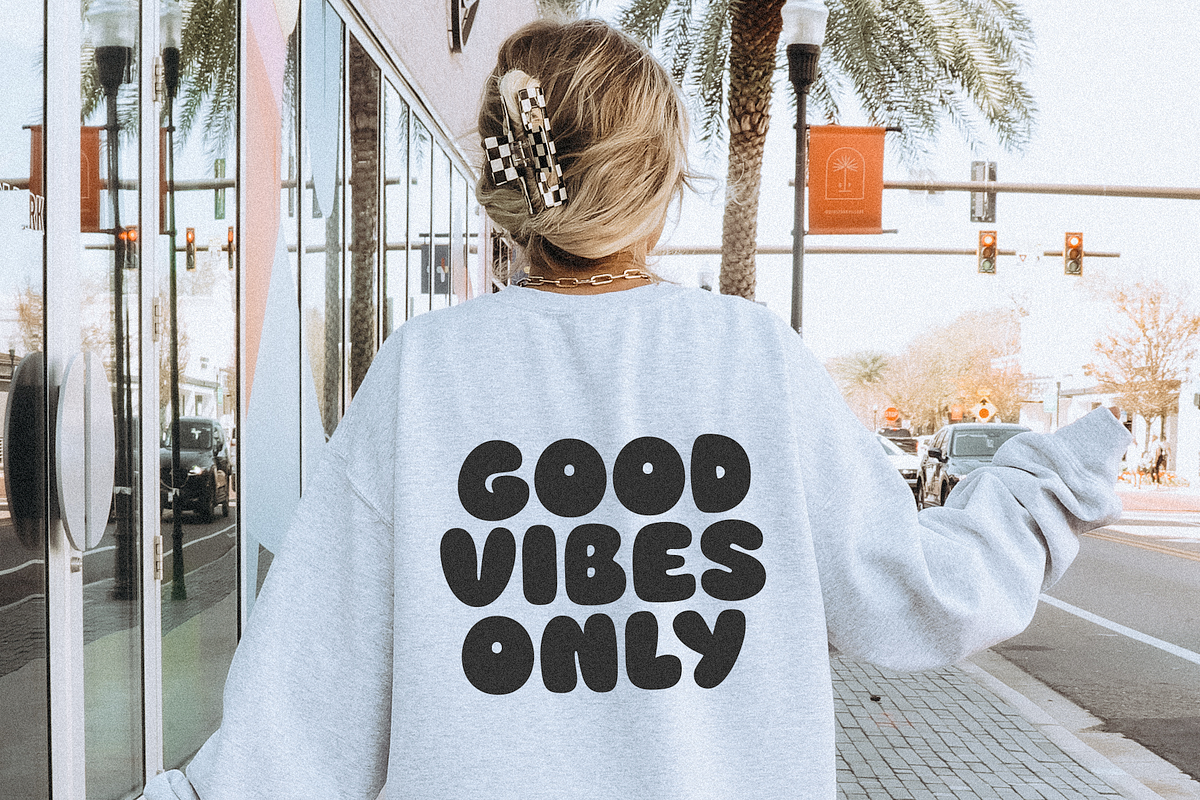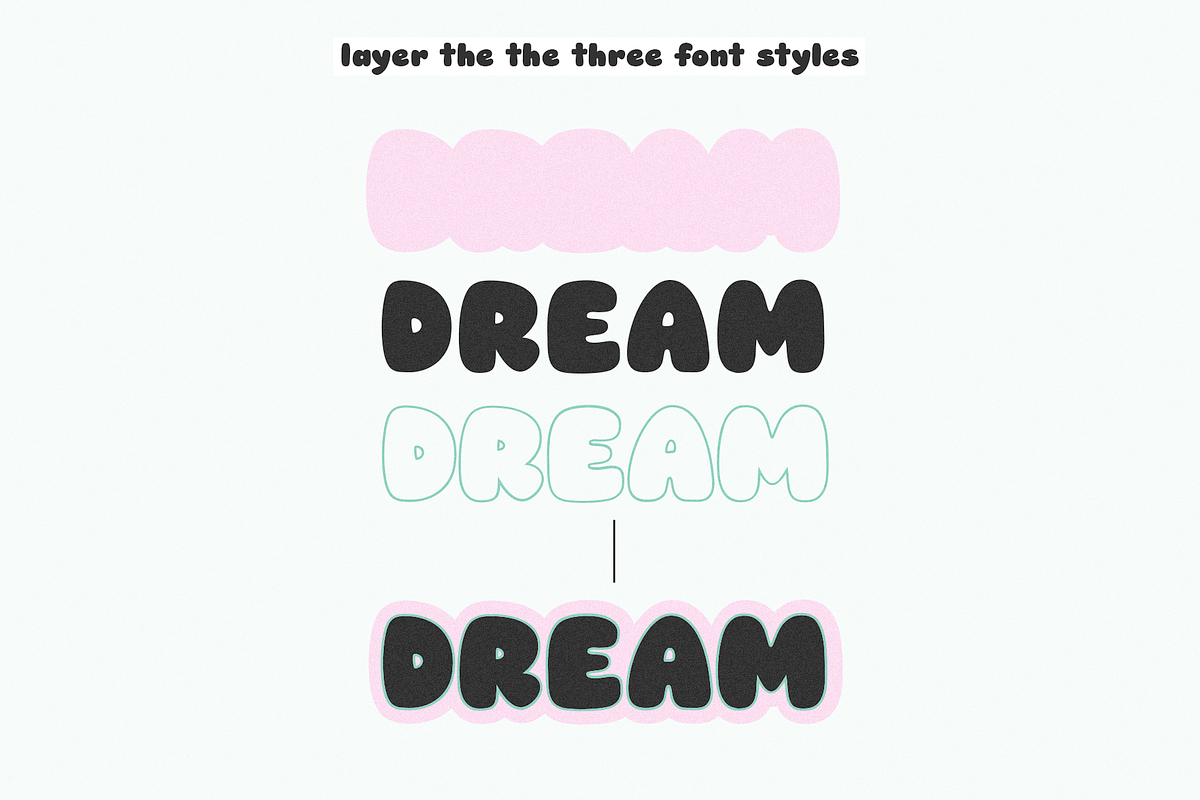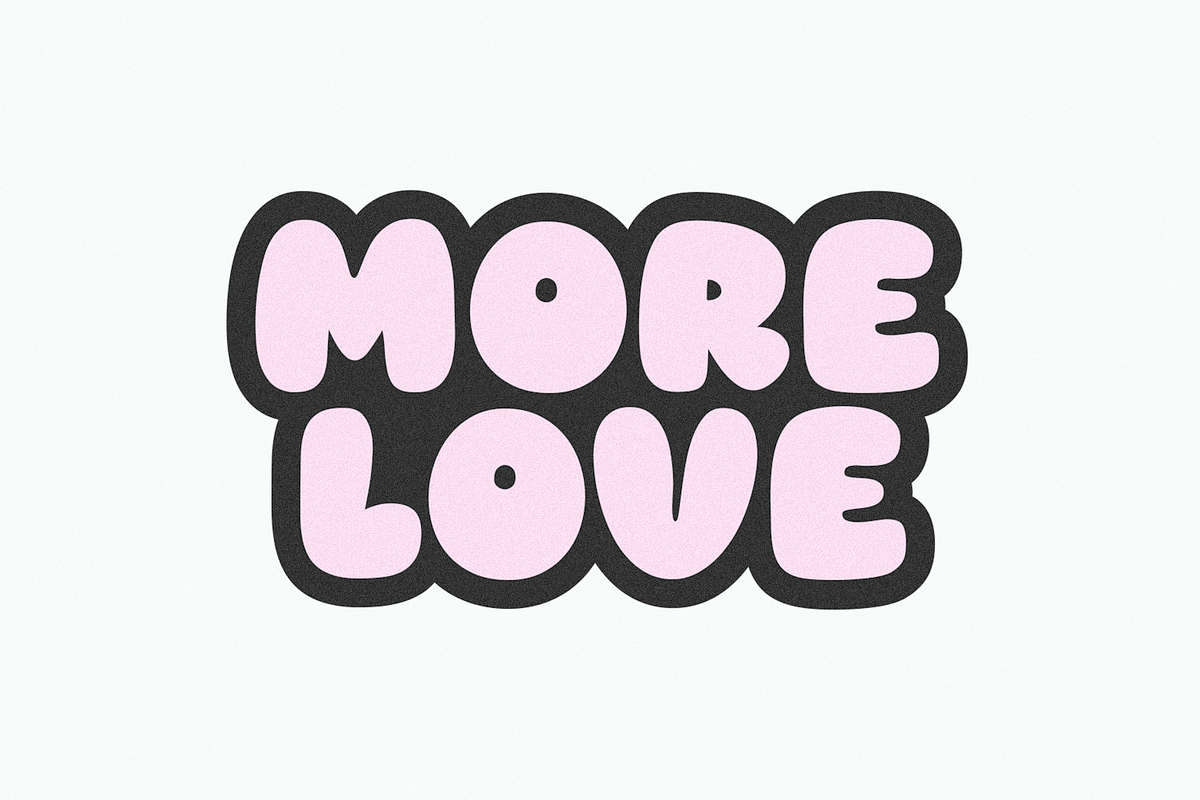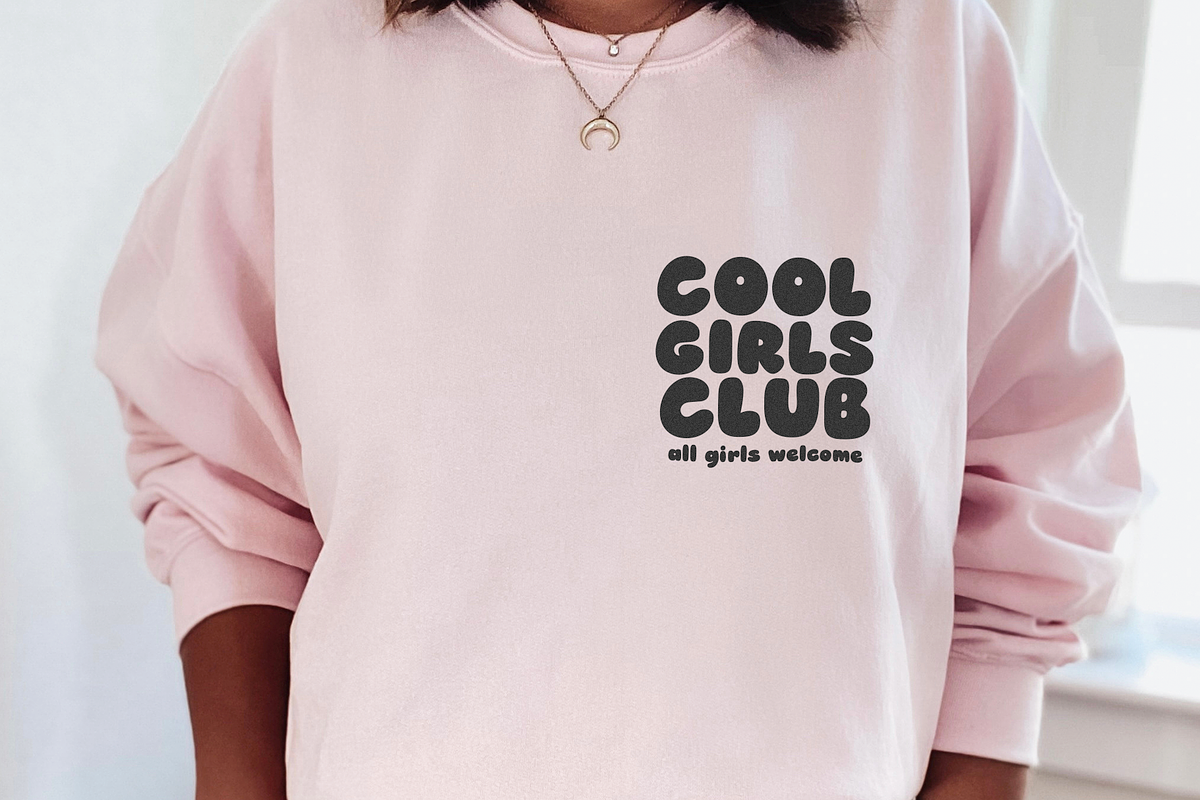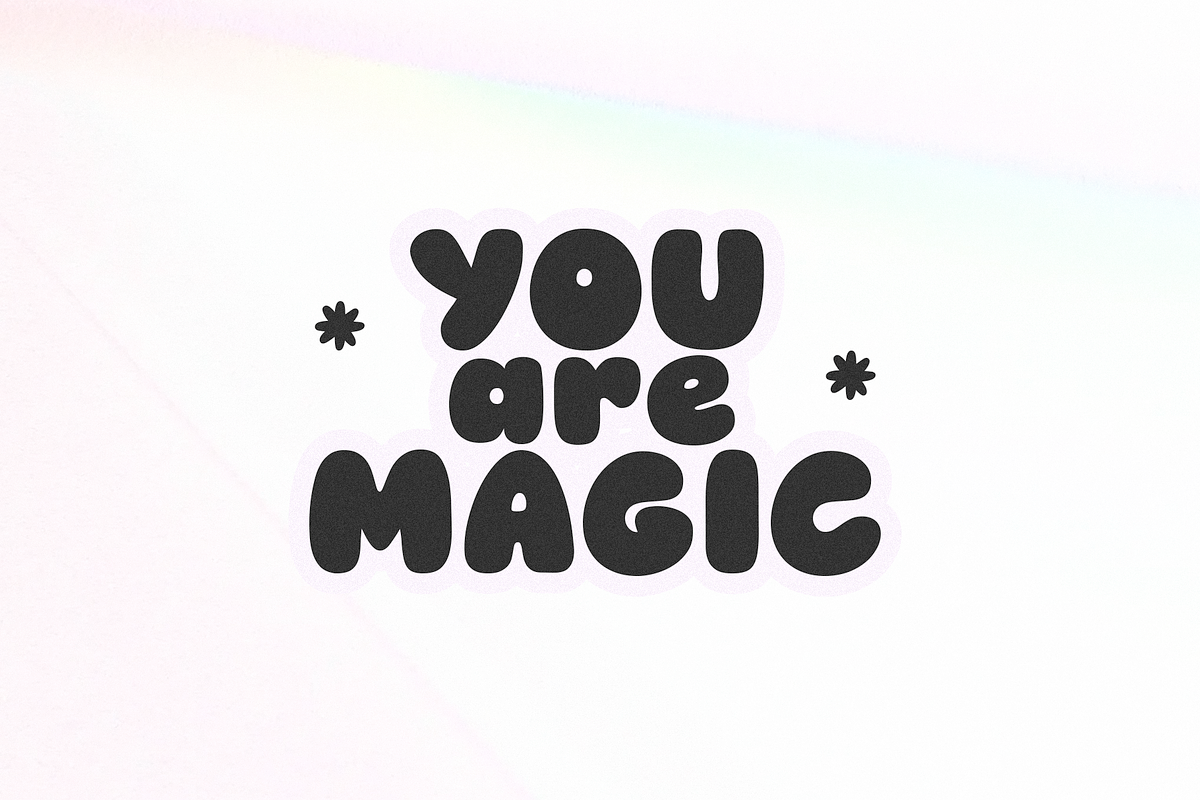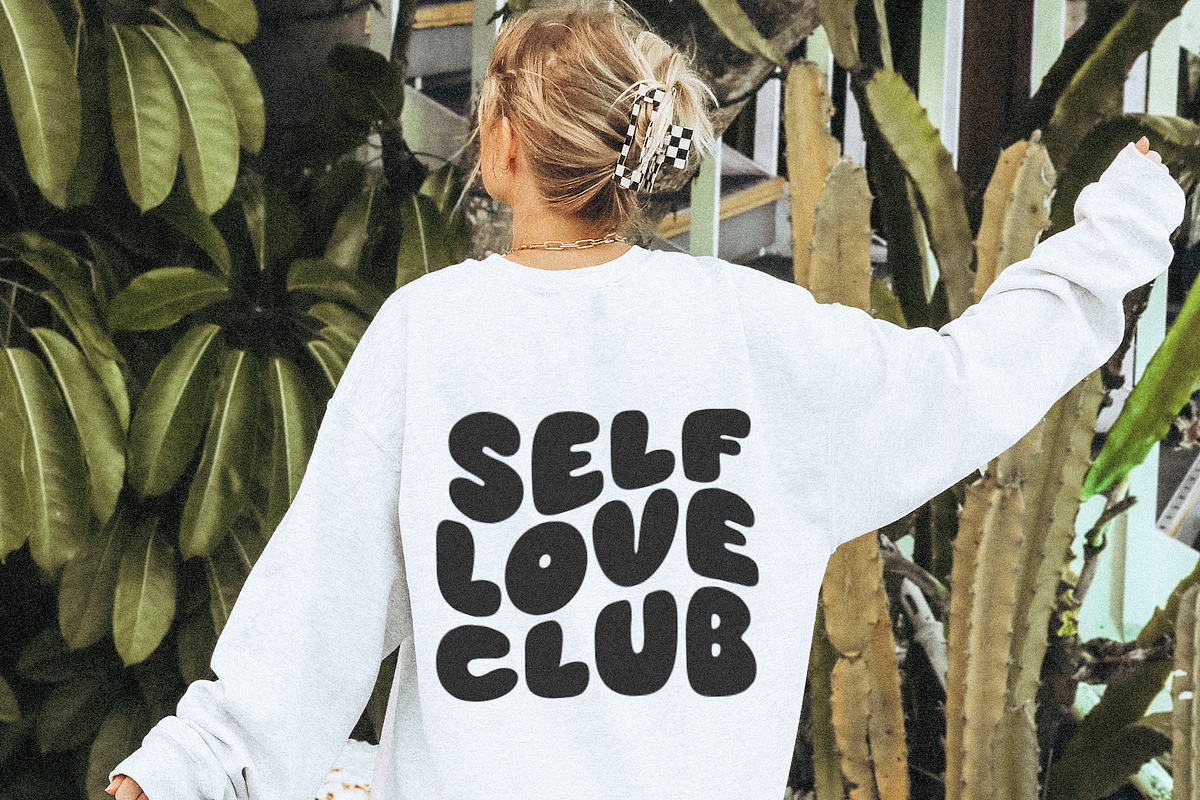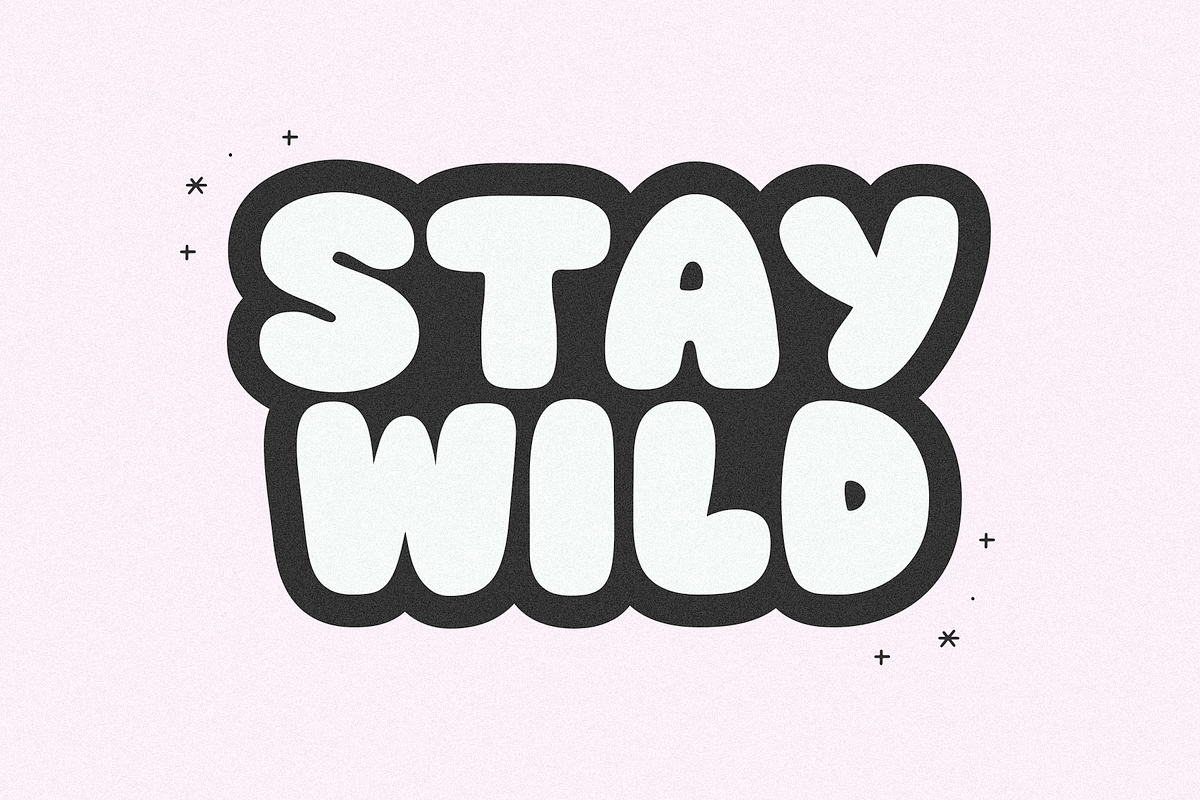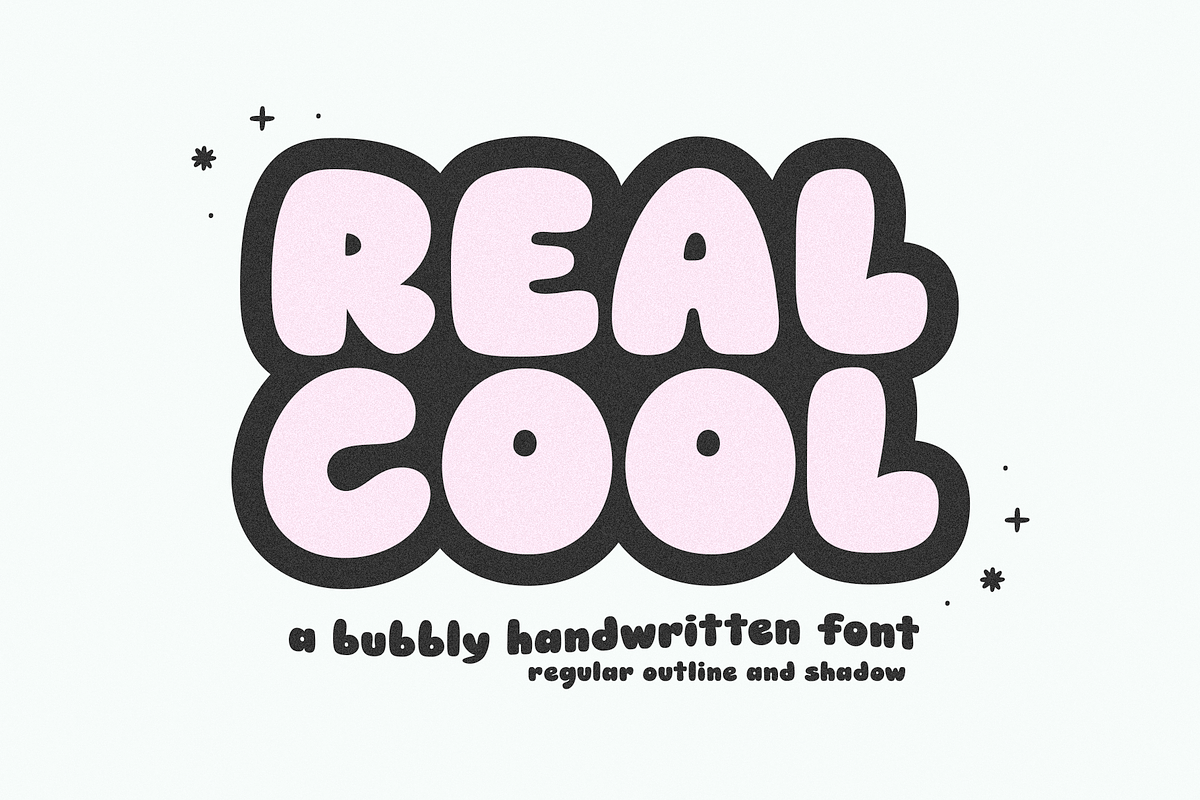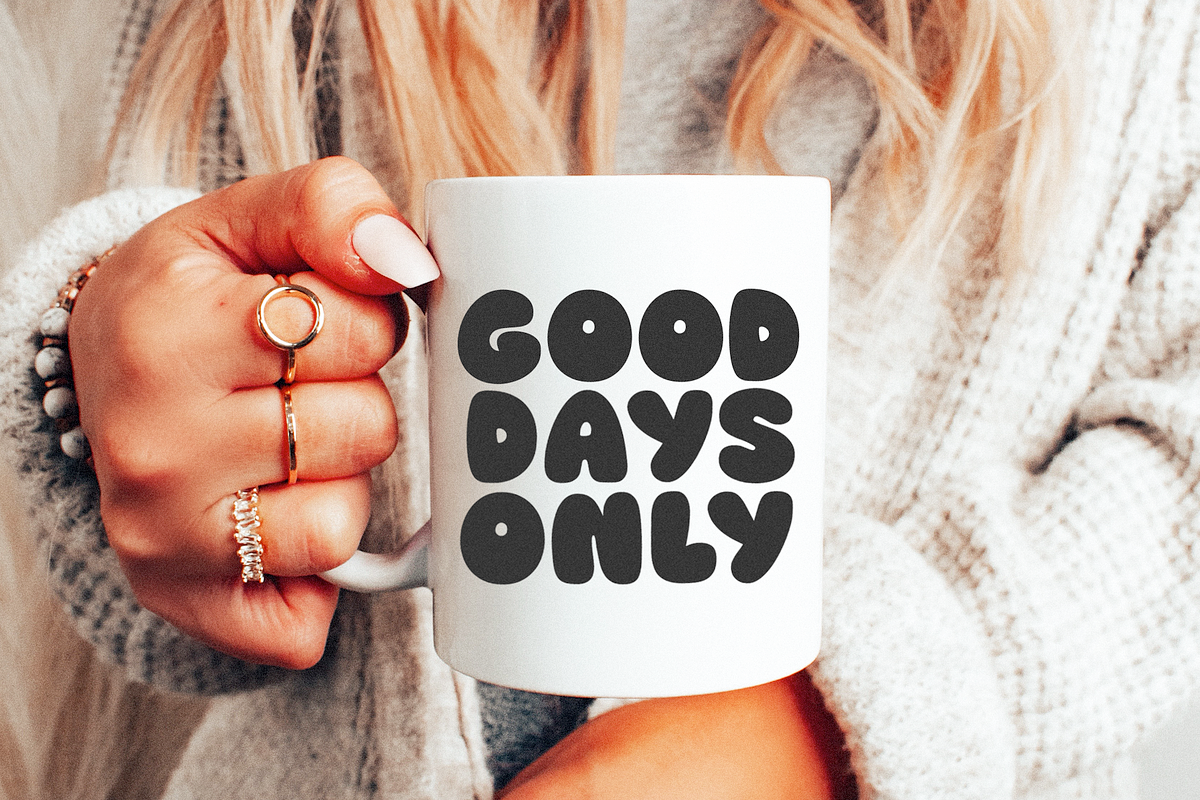
Real Cool | Bubbly Retro Font
Real Cool is a bubbly handwritten font!
Includes 3 fonts -
- regular
- shadow
- outline
Layer these fonts to create fun and unique words and quotes!
This font is perfect for logos, procreate, stickers, cricut projects, teachers, bulletin board displays, instagram quotes, social media and more!